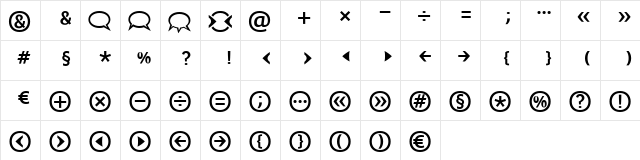
BienvenuePicto Regular
| Foundry | TM - Created by Jean-Francois Porchez, Porchez Typofonderie for the exclusive use of France Telecom |
Design Context for BienvenuePicto Typeface
BienvenuePicto takes a measured approach to typography — its balanced proportions and neutral character make it a reliable workhorse for both digital and print work.